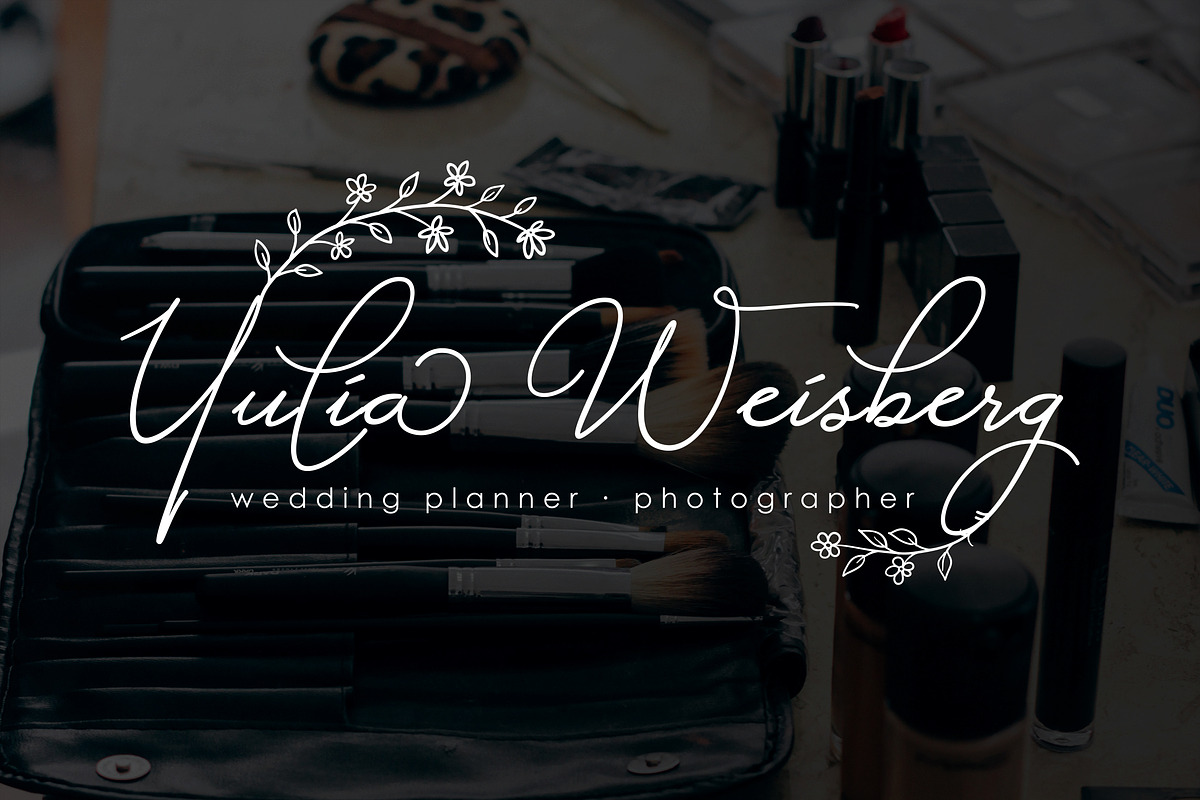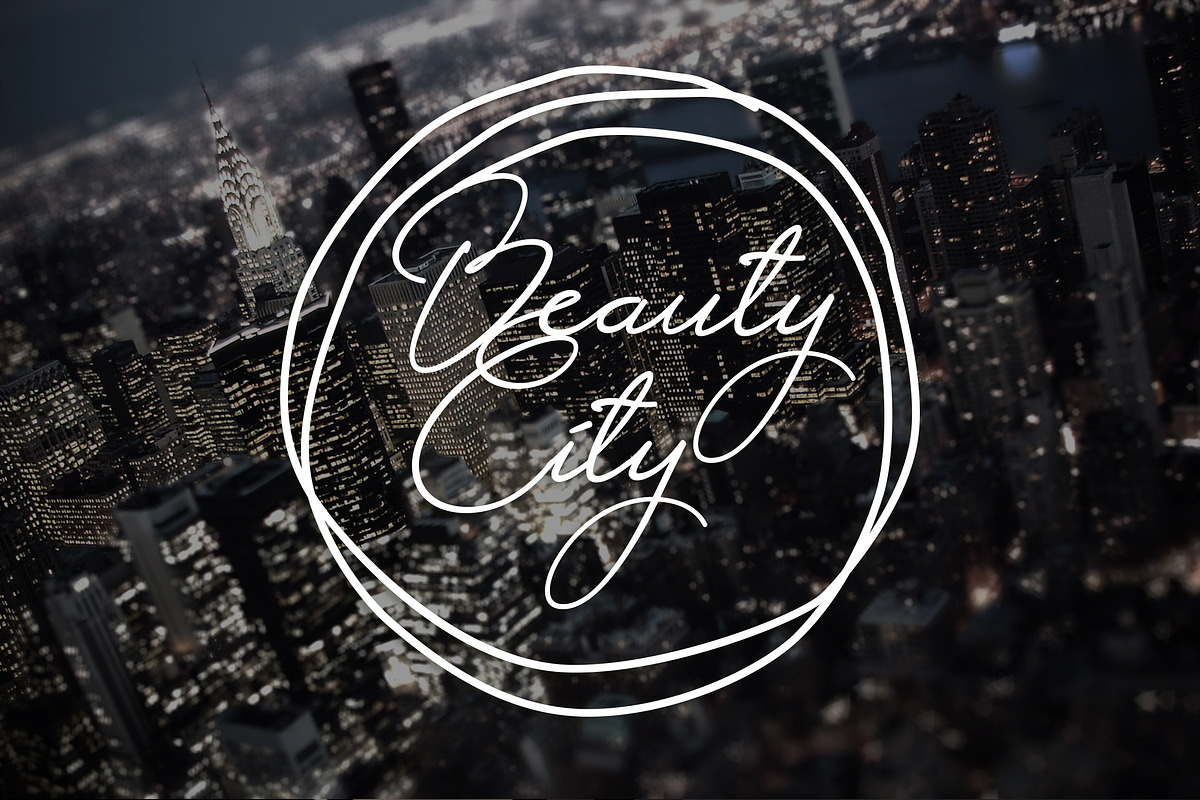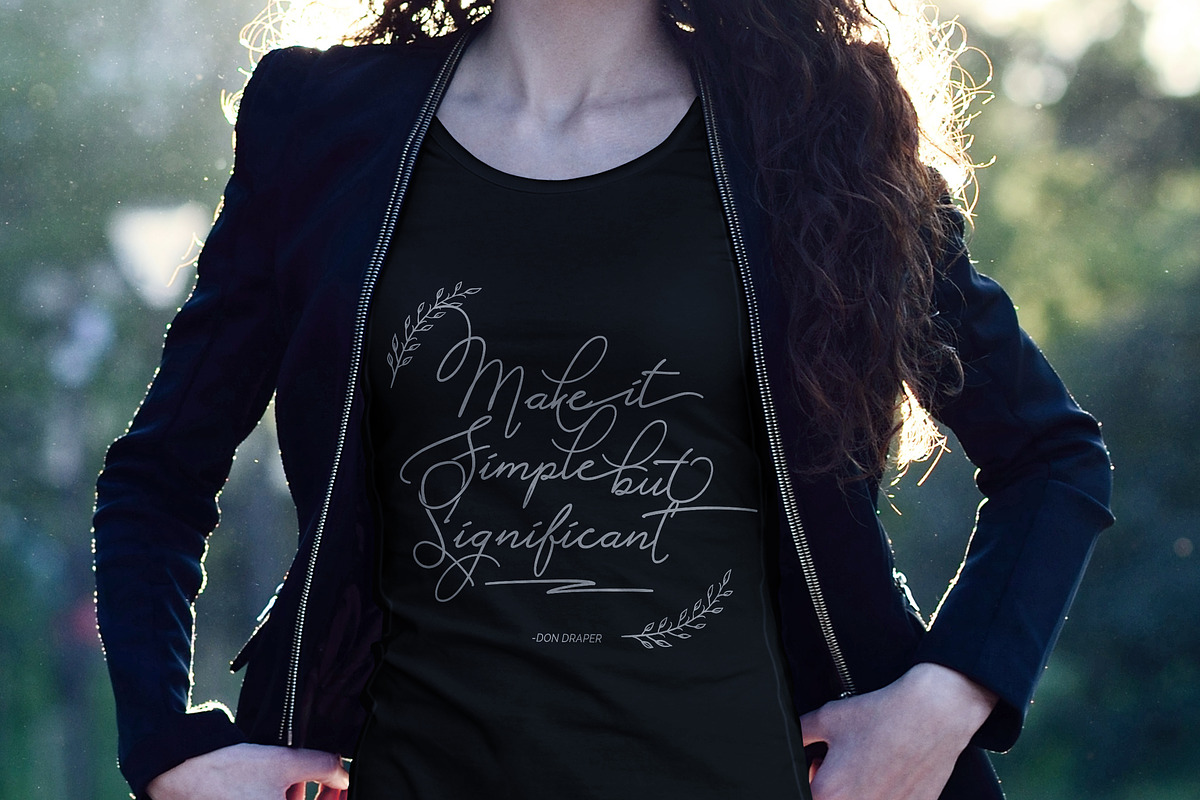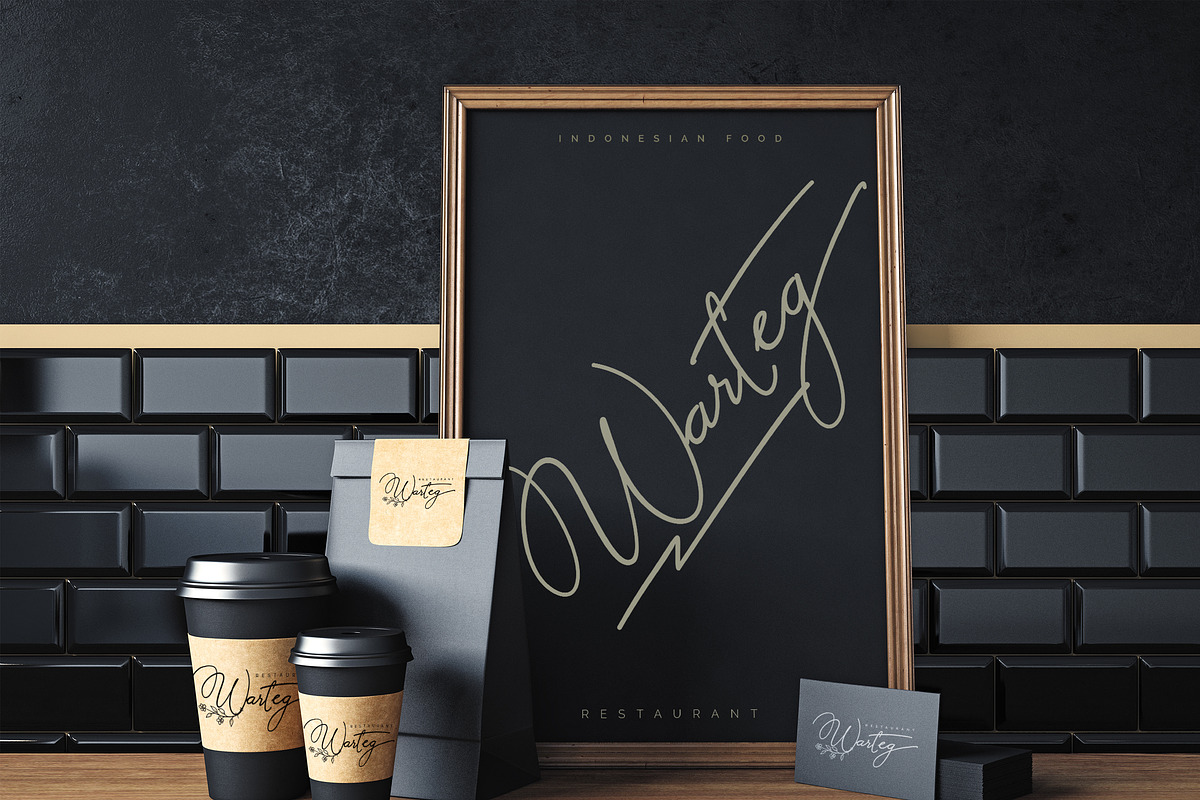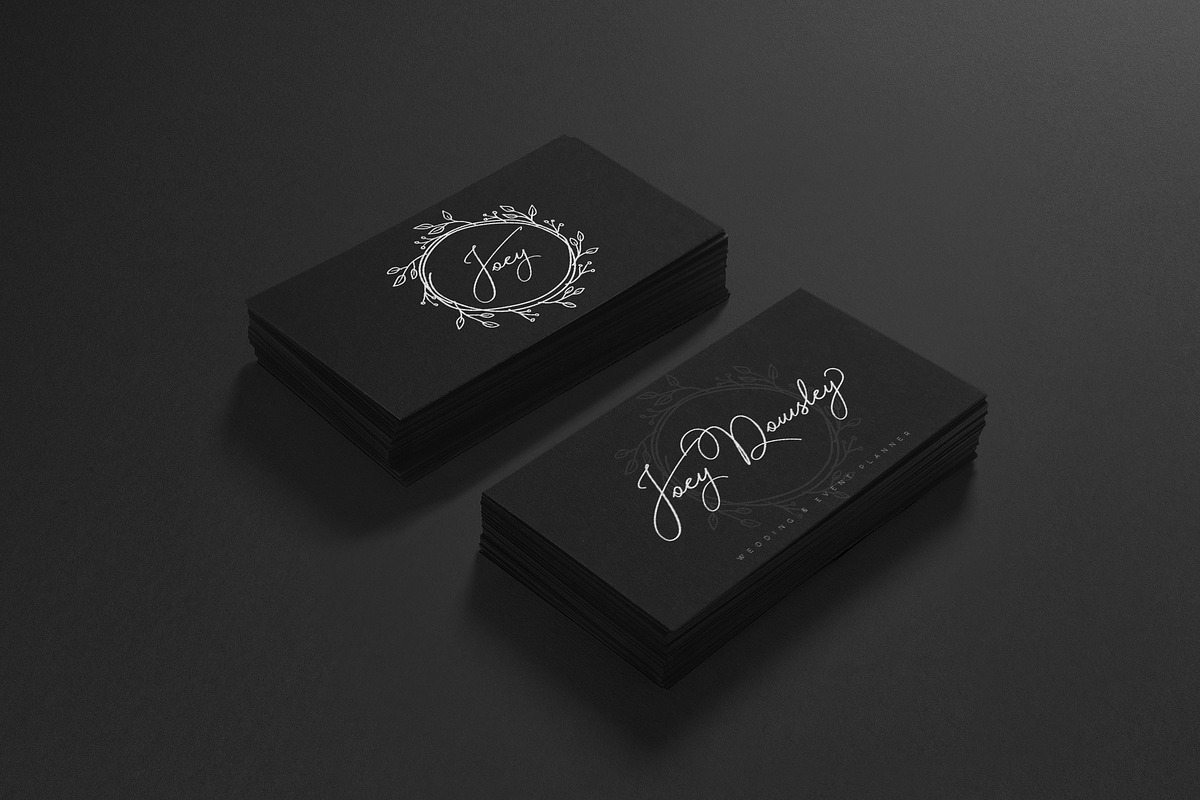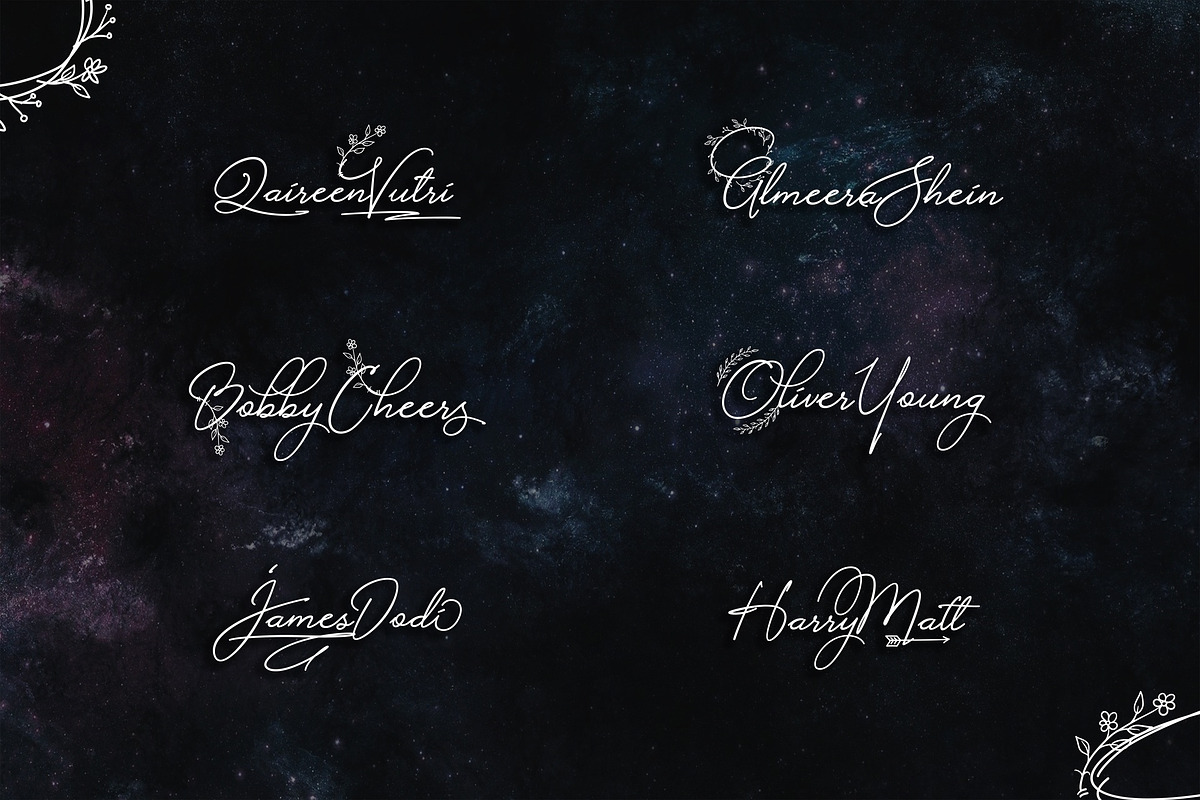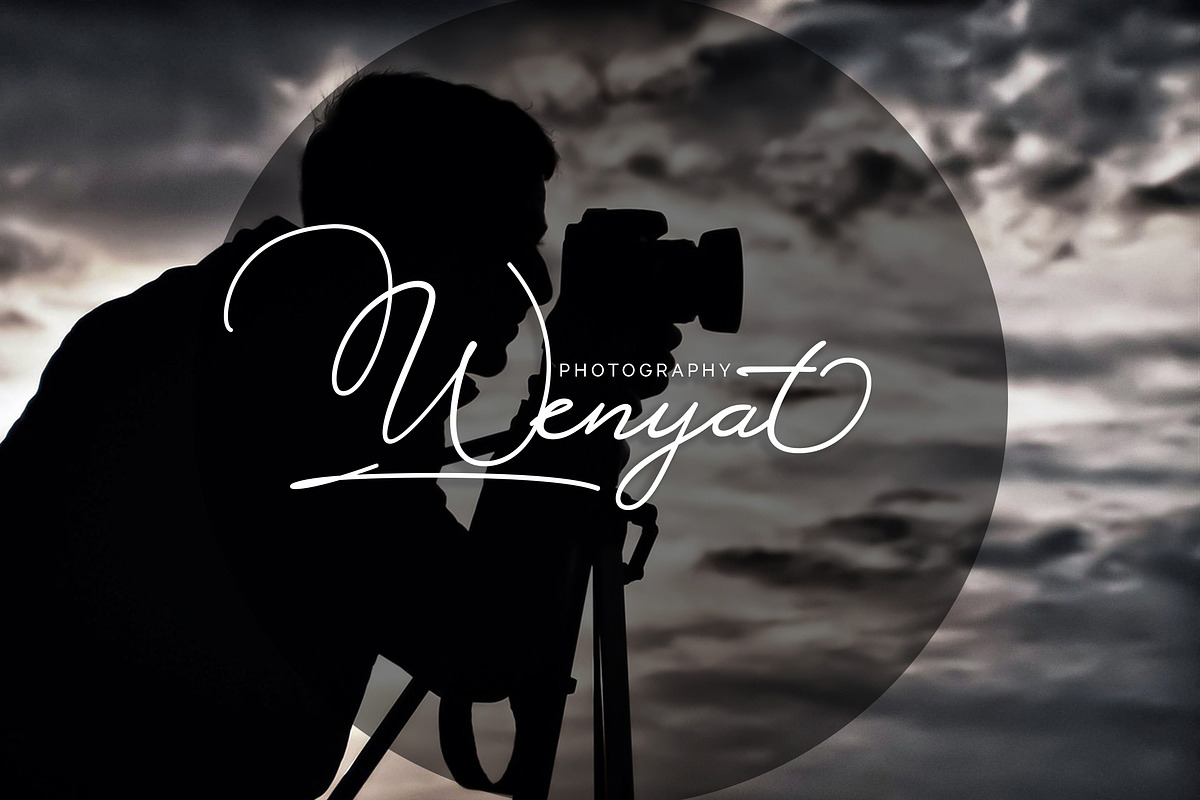
Alistair Signature Font
Alistair Signature Font by Aktab Studio is a font selected for branding, posters, packaging, typography.
- comes with a complete set of standard characters, Alternates, Punctuation & have extra ornament for your design and many more.
- The Features of this fonts is: UPPERCASE and lowercase Numeral and punctuation Stylistic Sets Stylistic Alternates and Contextual Alternates
Alistair Signature Font by Aktab Studio fits naturally into Branding, posters, packaging, typography.